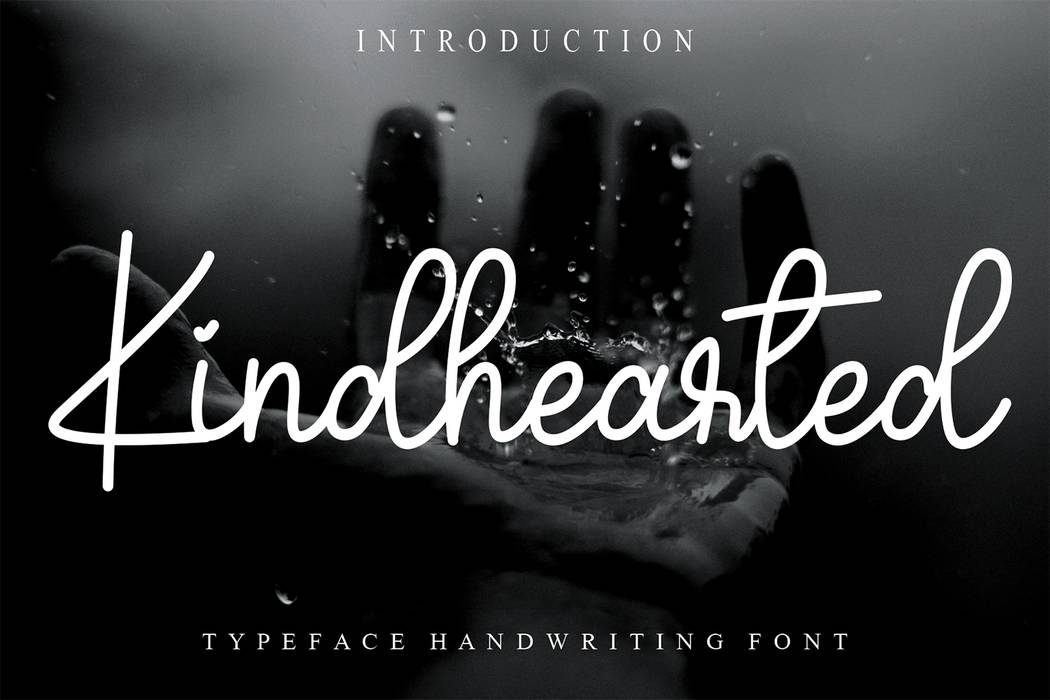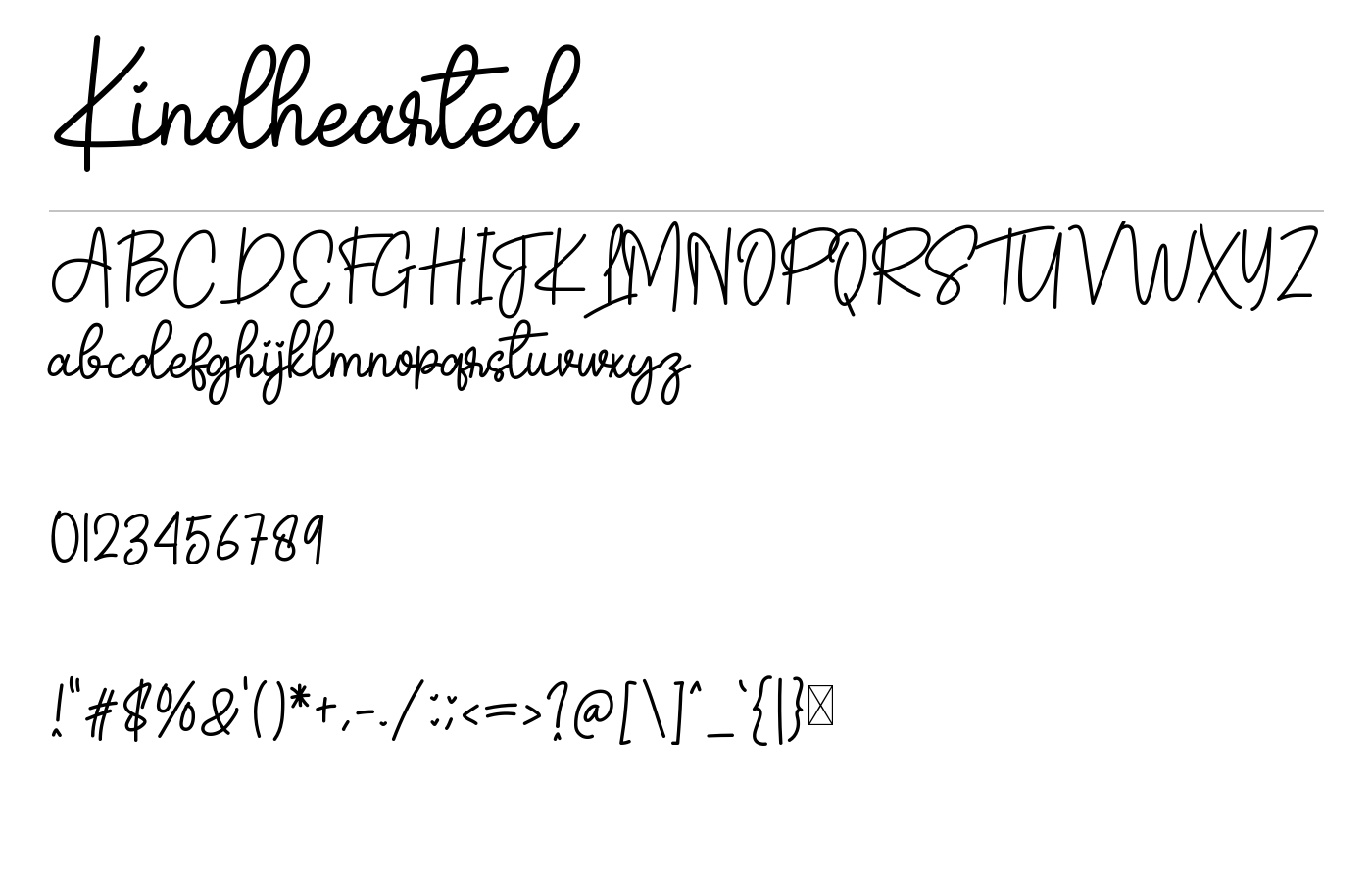
Kindhearted Font is a playful and elegant script typeface featuring a handwritten, casual style with smooth, flowing lines and a light weight. Its tall x-height and slightly irregular letterforms give it a friendly, personal touch, making it perfect for creative projects, invitations, branding, and social media graphics where a warm and approachable feel is desired. This font works beautifully in headlines and short text, adding charm and warmth without sacrificing readability.
Kindhearted Font
About Kindhearted Font